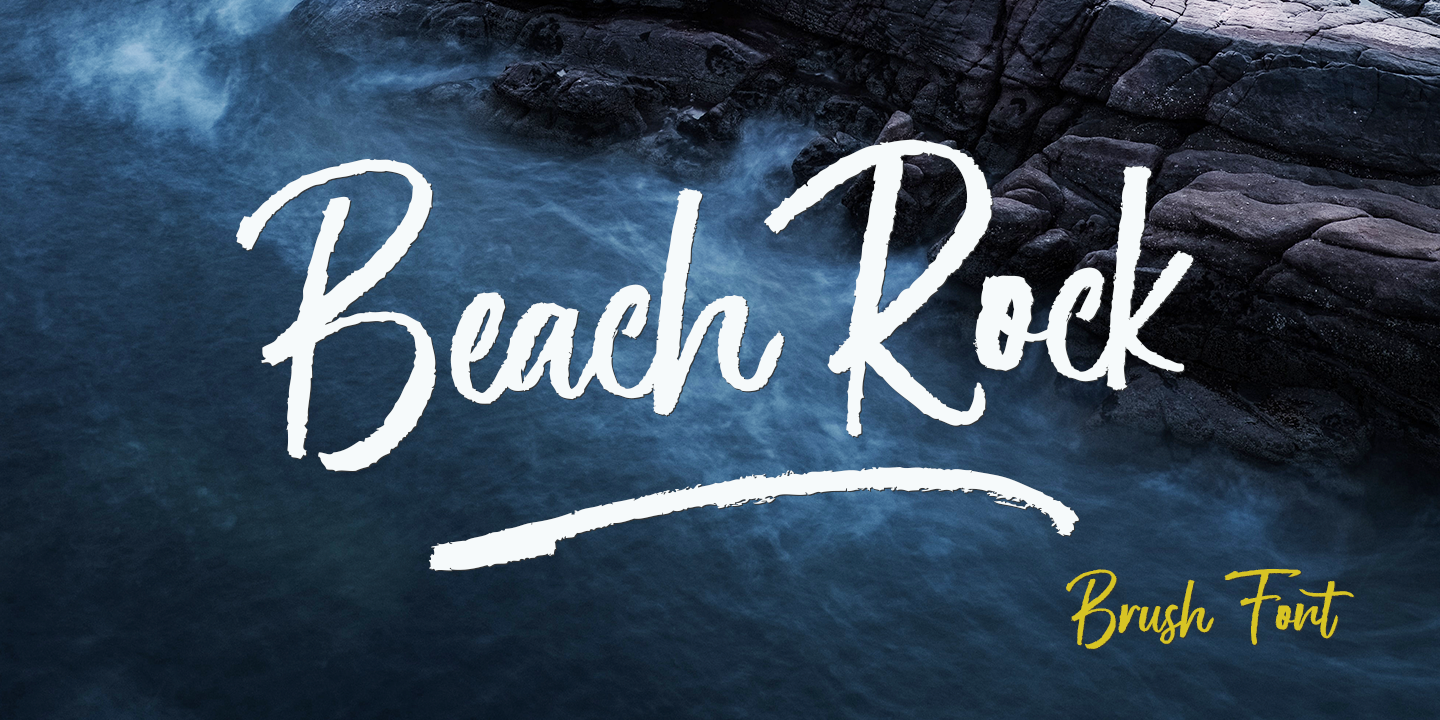
Beach Rock Font Free Download – A Trendy Laidback Typeface with Coastal Vibes
Surf into summer with Beach Rock Font Free Download, a breezy handwritten font that captures the carefree spirit of coastal living. With its relaxed strokes and sun-bleached texture, this versatile typeface brings instant vacation vibes to any design.
Why Designers Love Beach Rock Font
1. Sun-Kissed Design Features
Natural dry brush texture
Casual uneven baseline
Salt-weathered character
Beach club branding
Summer festival posters
Surf/skate shop graphics
Tropical product packaging
Travel blog designs
3. Technical Details
Includes: Uppercase, lowercase & numerals
Special beach-themed glyphs (waves, sun)
Multilingual support
PUA encoded alternates
Creative Ways to Use Beach Rock Font Free Download
DIY vacation albums
Summer party invites
Personal travel journals
Classroom beach themes
Resort merchandise
Swimwear branding
Cocktail bar menus
Tourism campaigns
Pro Designer Tips
Combine with clean sans-serifs
Use sandy color palettes
Add watercolor textures
24-36pt for best readability
Works great in mixed case
Perfect for short phrases